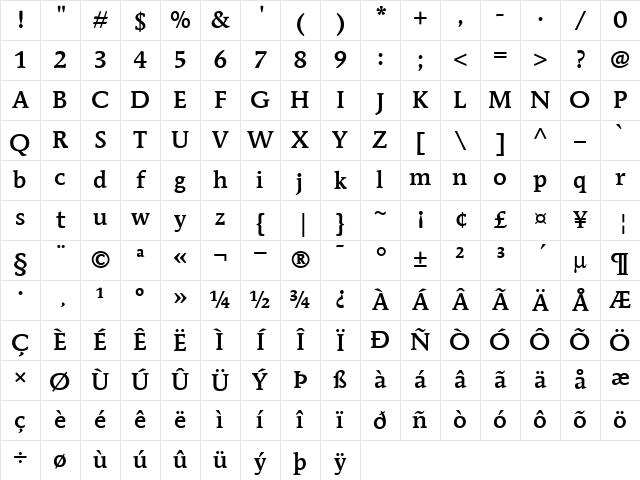
ITCMendozaRoman- Medium
Design Context for ITCMendozaRoman-
ITCMendozaRoman- is a composed and adaptable typeface that performs quietly and consistently across a wide range of design contexts.
Pro Tip: Use ITCMendozaRoman- in both headline and body roles to test its range before committing to a single application.